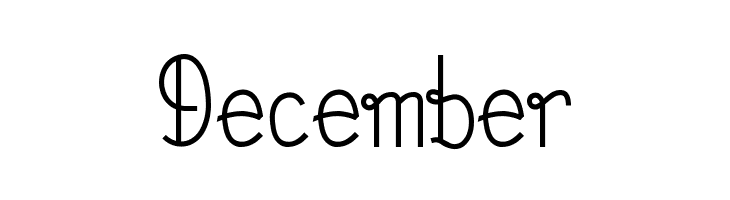
A bold, modern font with rounded edges and a geometric structure.
A bold, rounded font with a futuristic and modern design.
A playful, hand-drawn font with whimsical and uneven characters.
( Drexs is a simple, thin and futuristic display font. Whether you use it for designs related to web or sci-fi projects, this font will easily stand out from the crowd. Great for branding, wordmark, logotype, logo design, header, ui design, etc Hello, Tha )
A bold, modern font with clean lines and geometric structure.
A lively and elegant handwritten font with fluid cursive letterforms.
An elegant script font with flowing, interconnected letters and graceful swashes.
A playful, hand-drawn font with tall, narrow characters and a whimsical style.
A playful, informal handwritten font with a casual and approachable style.
A smooth, flowing script font that mimics natural handwriting.
A playful, dotted font with a pixelated, retro style.
A decorative, pixelated italic font with a retro digital vibe.
A bold, outlined font with a dotted interior pattern, offering a modern and playful look.
A bold, angular, and italicized font with a futuristic design.
A rustic, hand-drawn font with a driftwood texture and bold, organic strokes.
A bold, modern serif font with elegant strokes and sharp serifs.
A bold, geometric font with a digital, futuristic style.
A bold, hand-drawn font with a playful, textured design.
A bold, hand-drawn font with thick, uneven strokes and a playful, energetic style.
A bold, hand-drawn font with a textured, artistic style.
A modern sans-serif typeface with clean lines and balanced proportions.
A bold, hand-drawn font with an organic, wavy design.
A playful and whimsical script font with fluid, expressive letterforms.
A bold, playful font with rounded characters and a whimsical style.
A playful, bold, and handwritten-style font with rounded characters.
A tall, narrow font with a modern and sleek design.
A decorative dingbat font with assorted drink and beverage illustrations.
A dynamic and fluid handwritten font with expressive letterforms.
A spooky, dripping font ideal for Halloween themes.
A bold, playful font with a dripping effect for a unique, fluid appearance.
A playful, dripping effect font with bold, rounded characters.